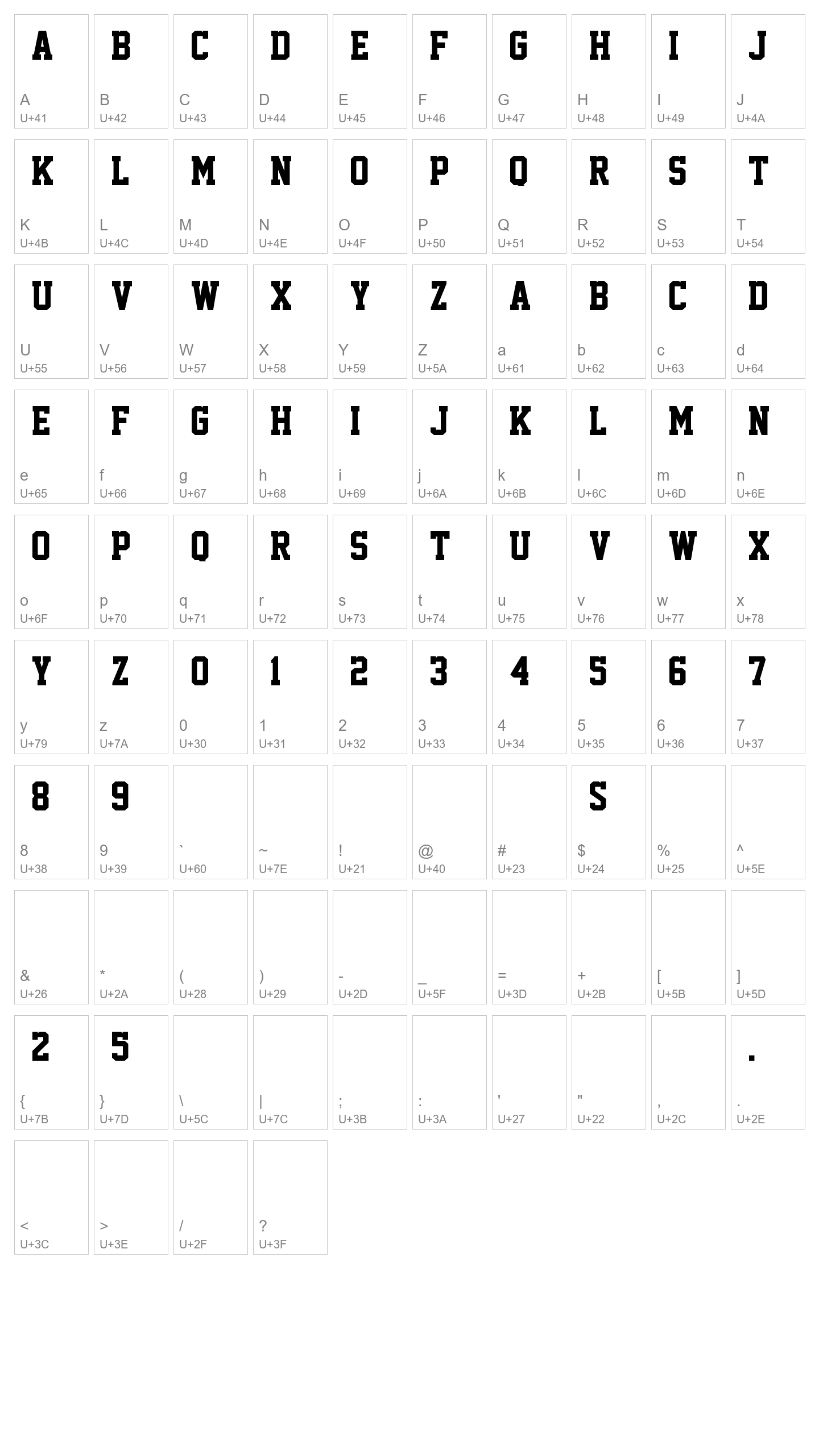
Academic M54
A font inspired by some college and university t-shirts. Ideal for creating logos and emblems. The upper and lower case 'S' and 's' are different, the lower case one being more traditional for this style of font. The left and right curly brackets hold alternate glyphs for numbers '2' and '5'.